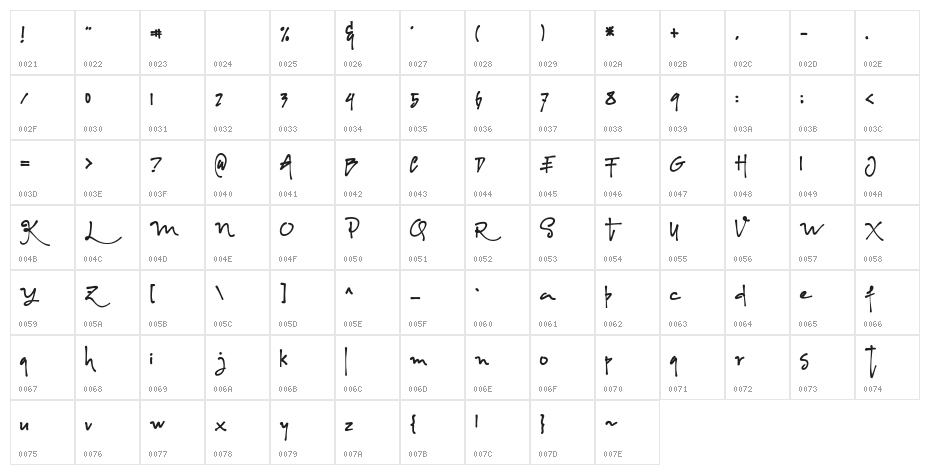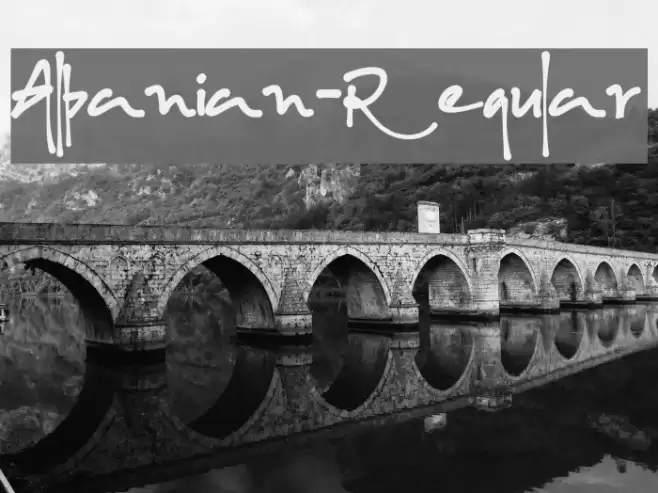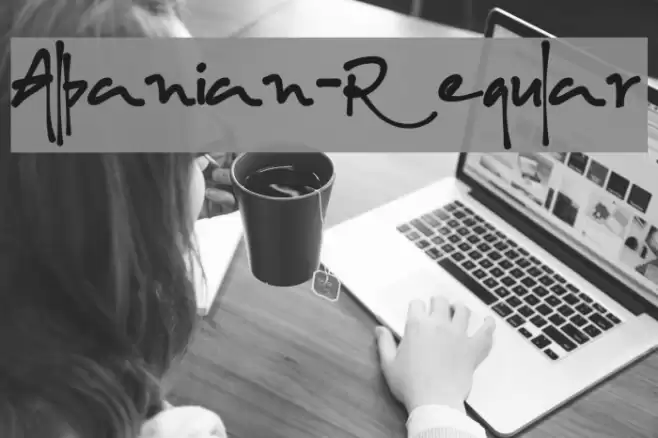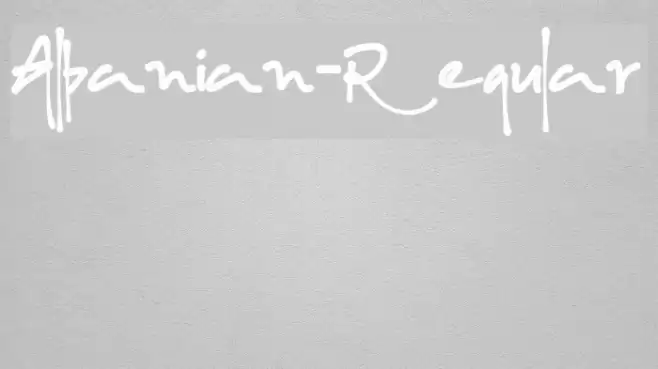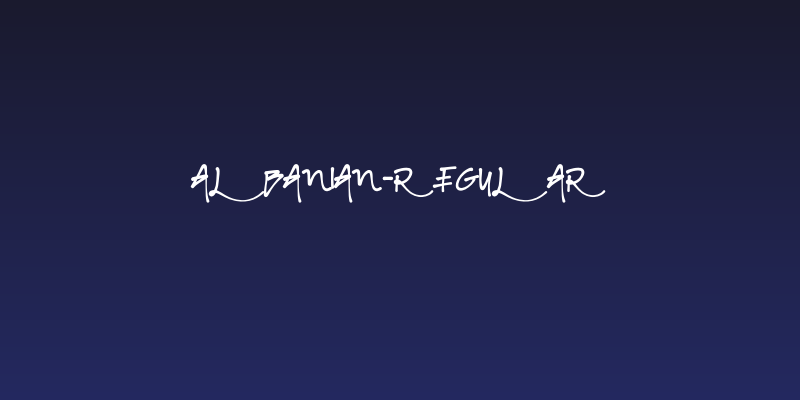
Albanian-Regular Font
Albanian-Regular Description
This font exhibits a lively and dynamic handwritten style, characterized by its fluid and cursive strokes. The uppercase letters are bold and expressive, with unique flourishes that add a touch of elegance. The lowercase letters maintain a consistent flow, enhancing readability while retaining a personal touch. Numbers and special characters are crafted with the same attention to detail, ensuring a cohesive appearance throughout. This font is ideal for projects that require a personal, artistic flair, such as invitations, greeting cards, or creative branding.
| Proposed Projects | Ideal for invitations, greeting cards, artistic branding, and creative projects. |